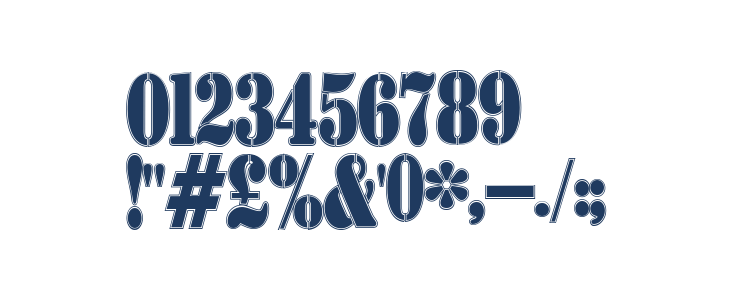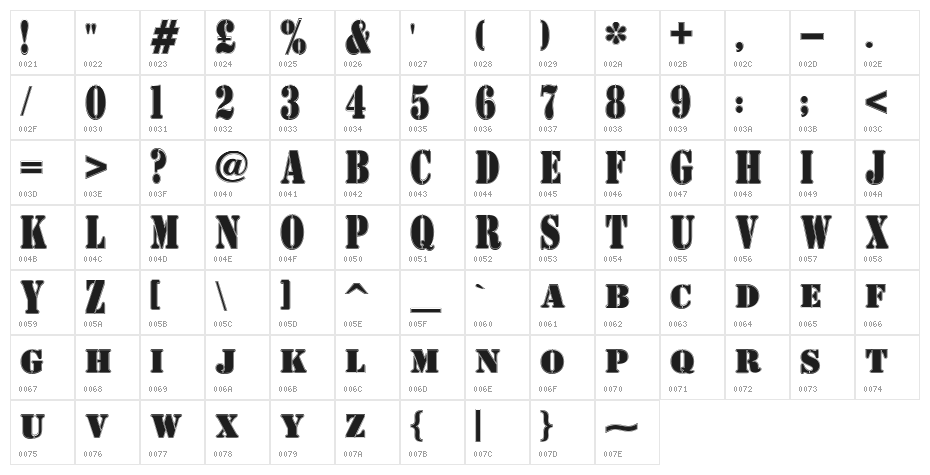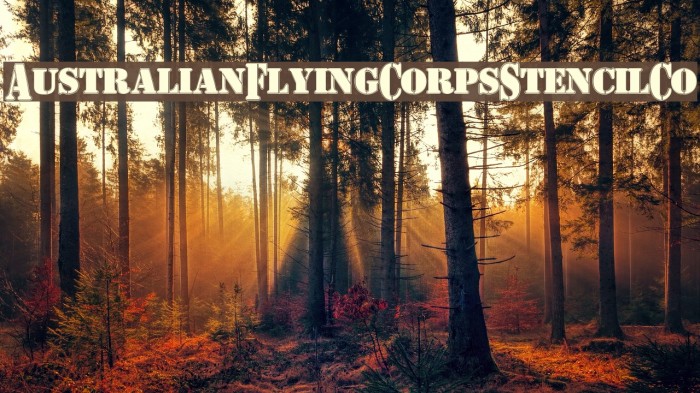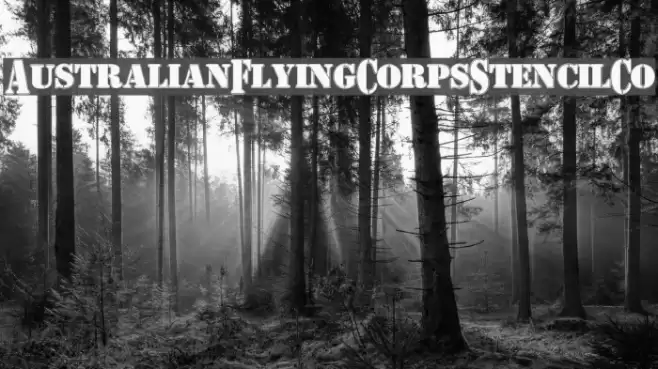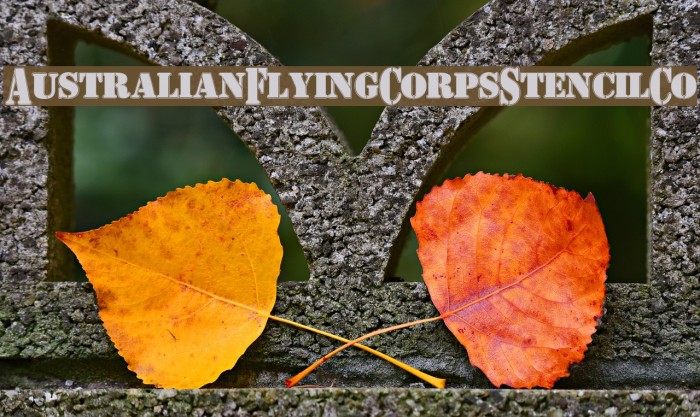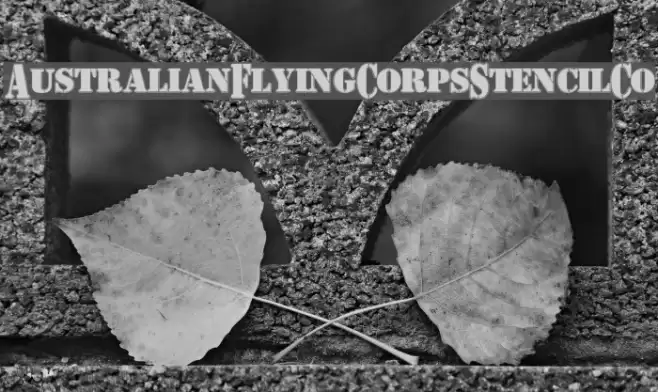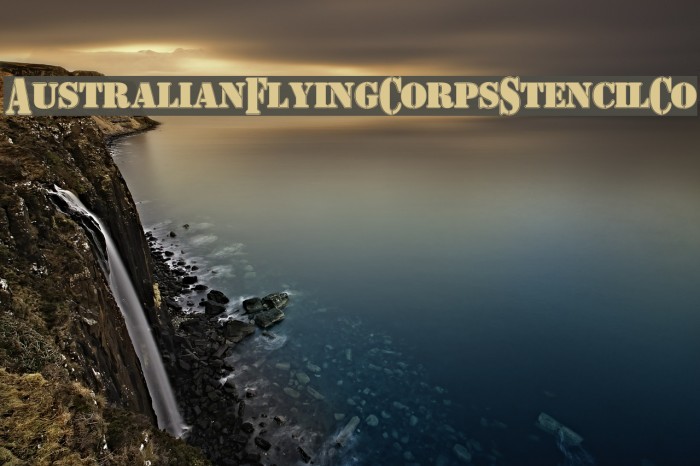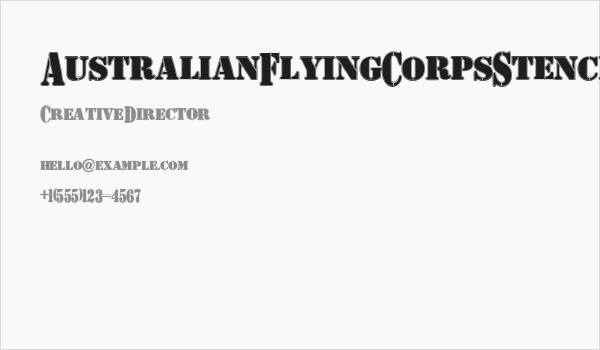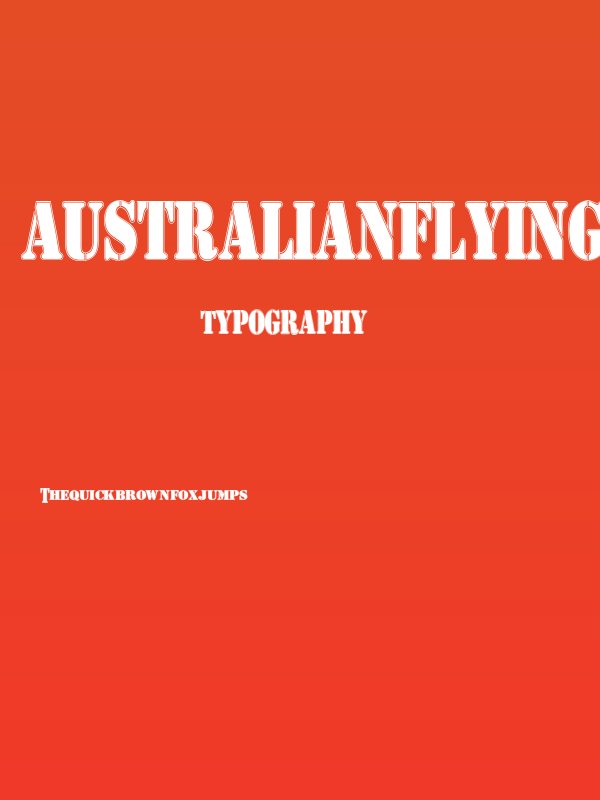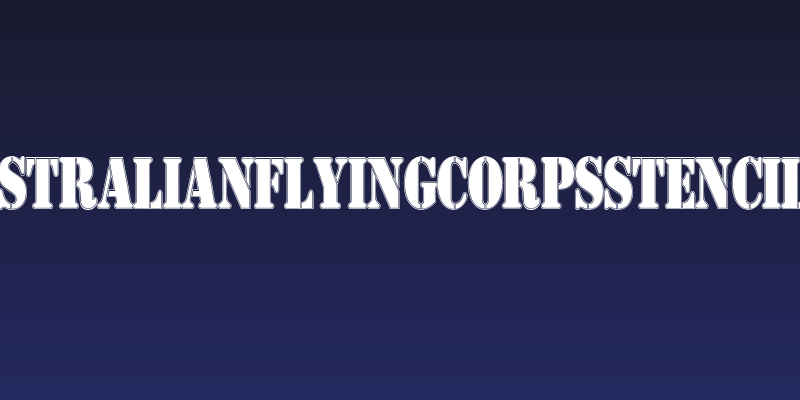
AustralianFlyingCorpsStencilCo Font
AustralianFlyingCorpsStencilCo Description
This font features a bold, stencil-like design with strong, thick strokes and a distinct cut-out style that gives it a rugged, industrial feel. The uppercase letters are prominent and commanding, making them ideal for attention-grabbing headlines or signage. The numbers and special characters maintain the same boldness and stencil effect, ensuring consistency across all text elements. The font's design is reminiscent of military or industrial applications, with a vintage touch that adds character and uniqueness. Its high contrast between the thick strokes and the cut-out spaces enhances readability while maintaining a decorative appeal.
| Overall Style | Vintage, Industrial |
| Use Case | Headlines, Signage, Posters |
| Proposed Projects | Ideal for military-themed designs, industrial signage, posters, and branding that requires a strong, vintage look. |